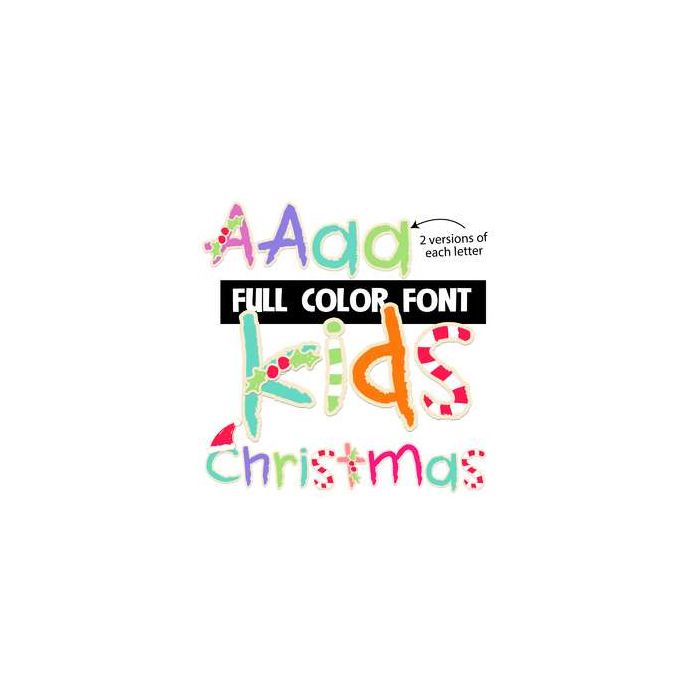
This full-color font features child-like lettering and drawings. There are two versions of each letter that you can access through your system's character map. This font works best for titles, displays, posters and more. Please note color fonts will show as black in non compatible programs. This font type is compatible with Silhouette Studio.